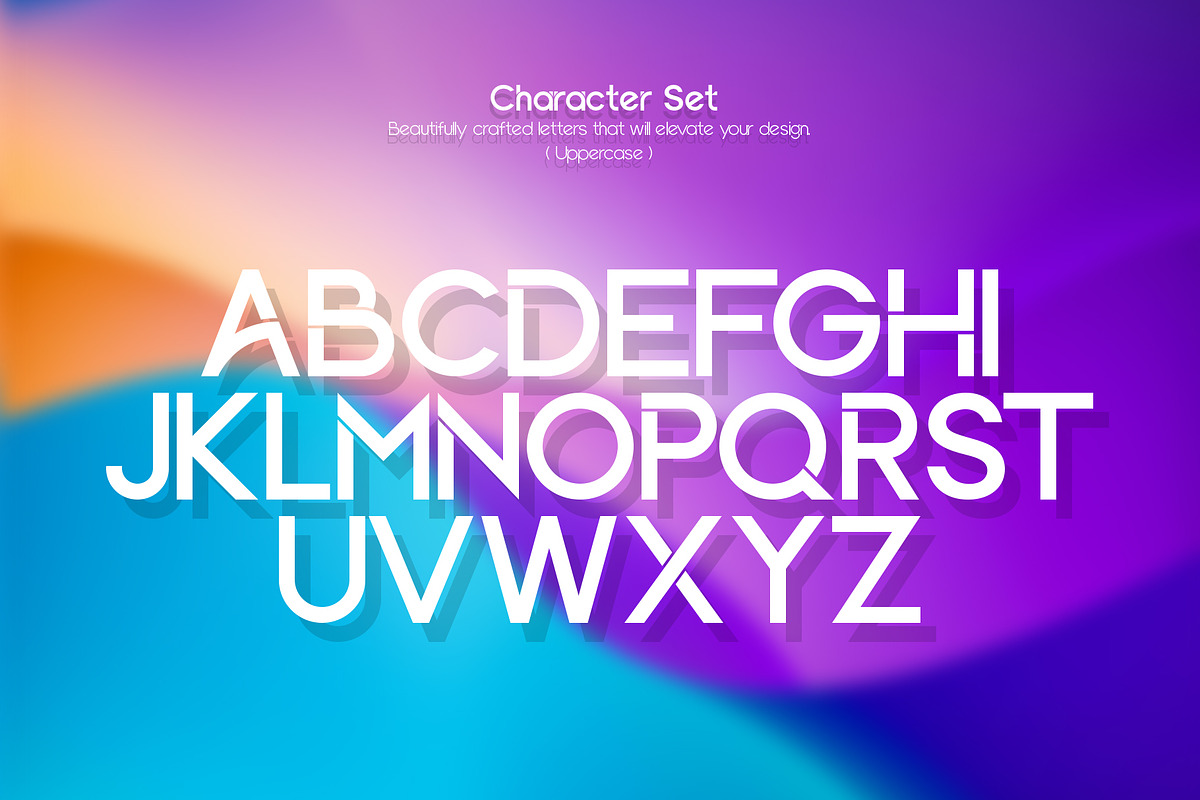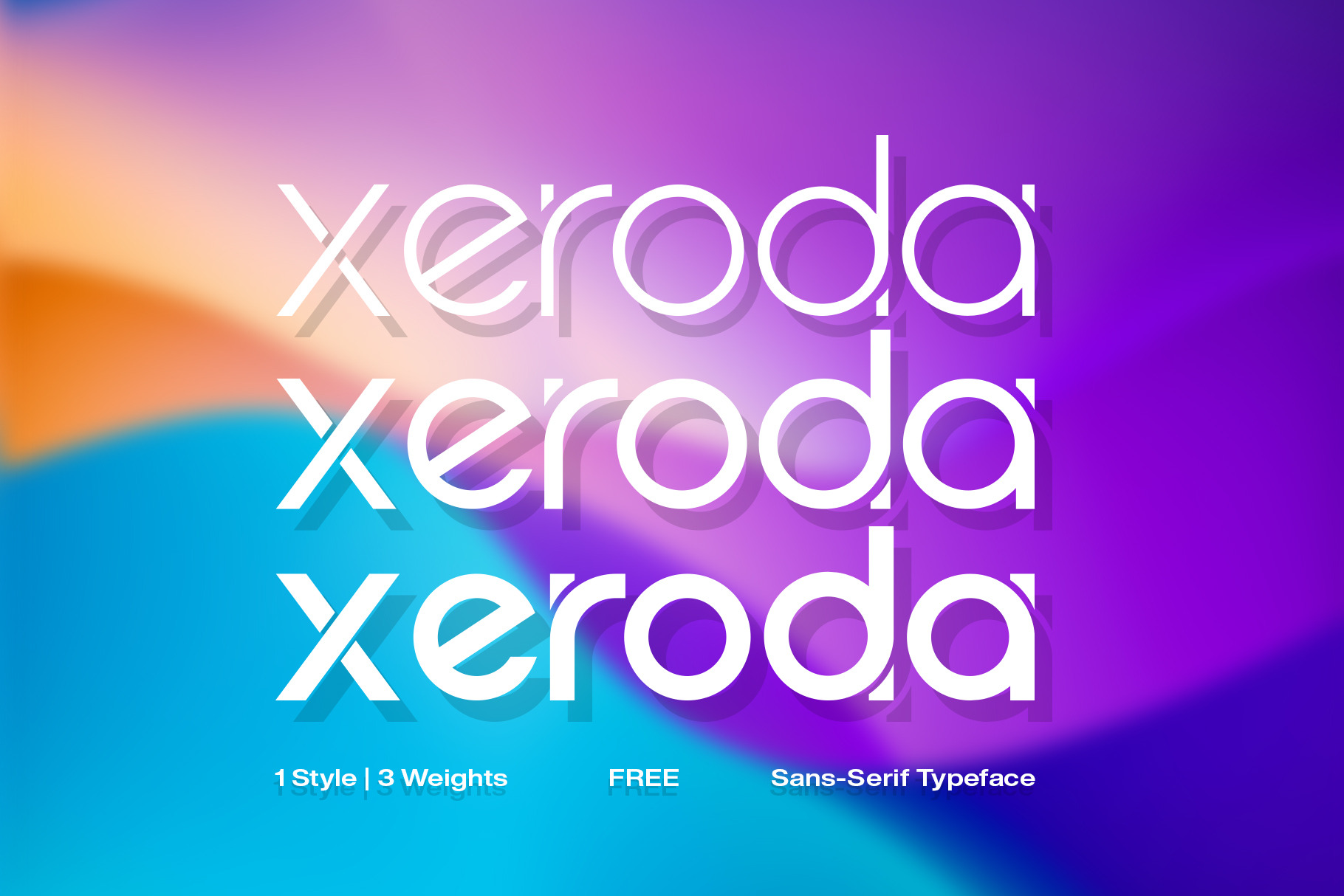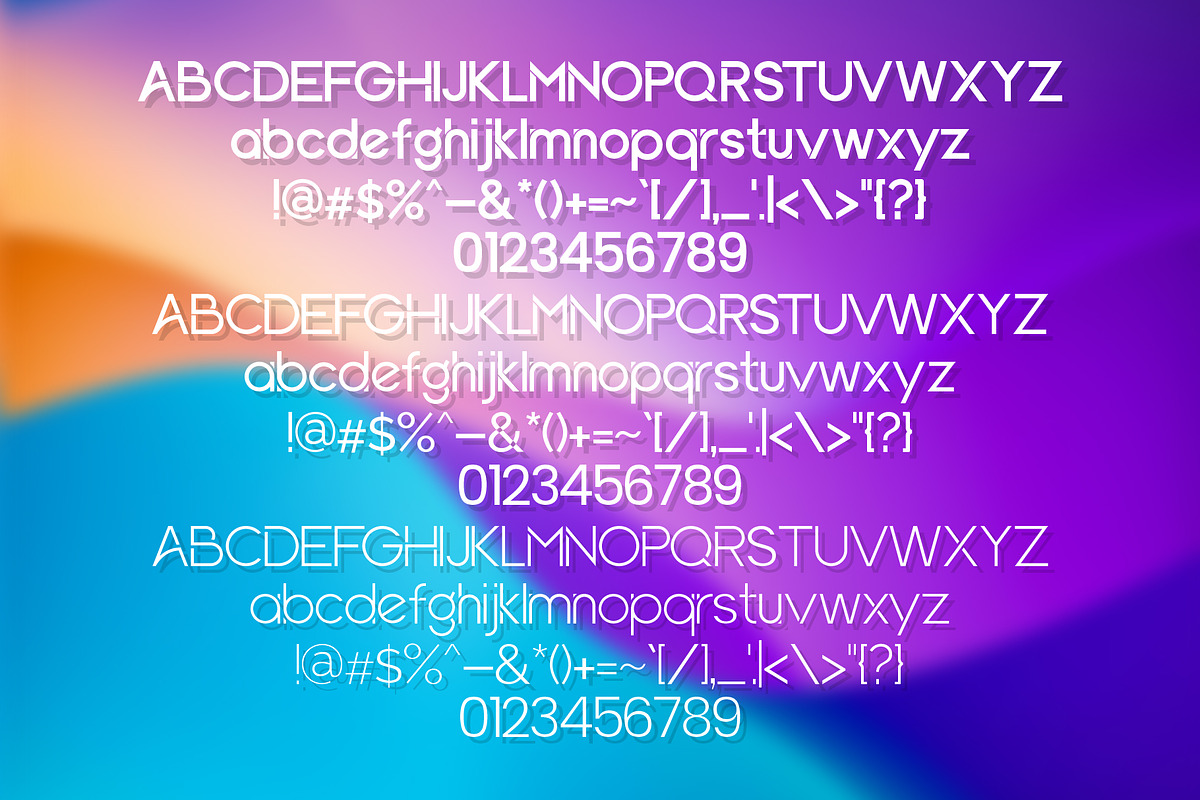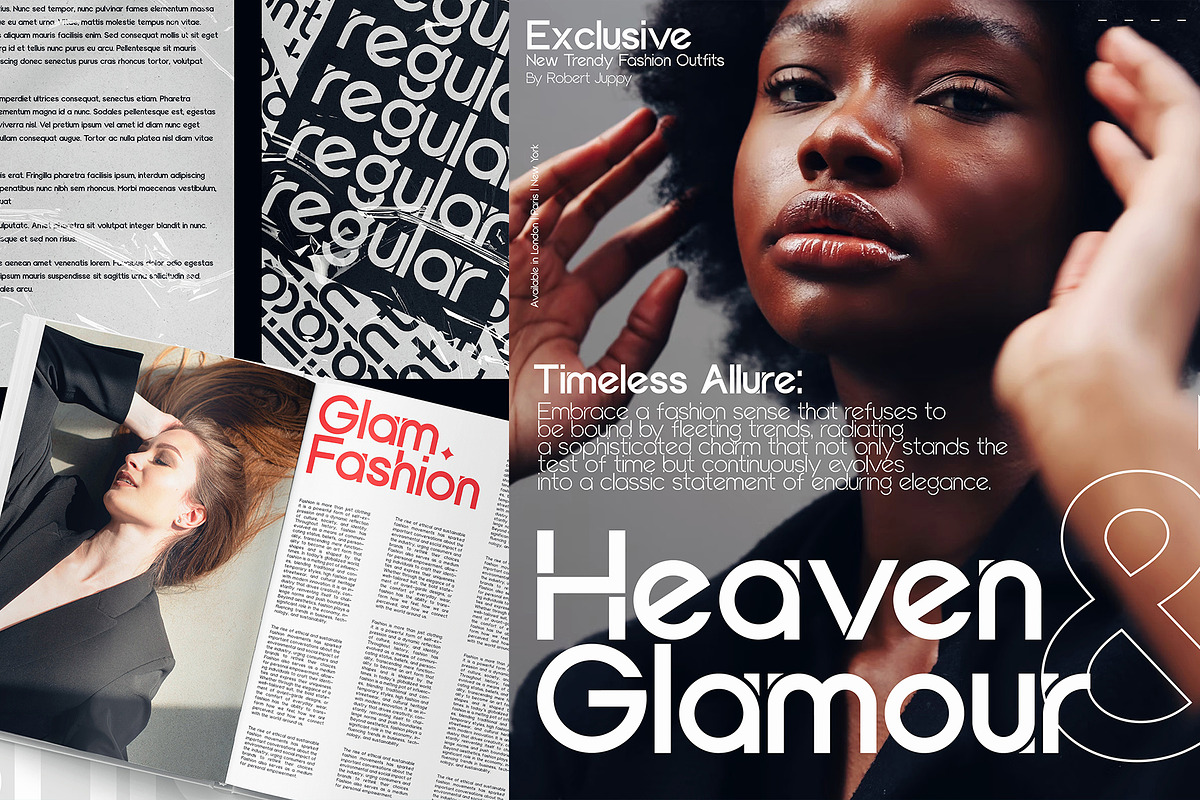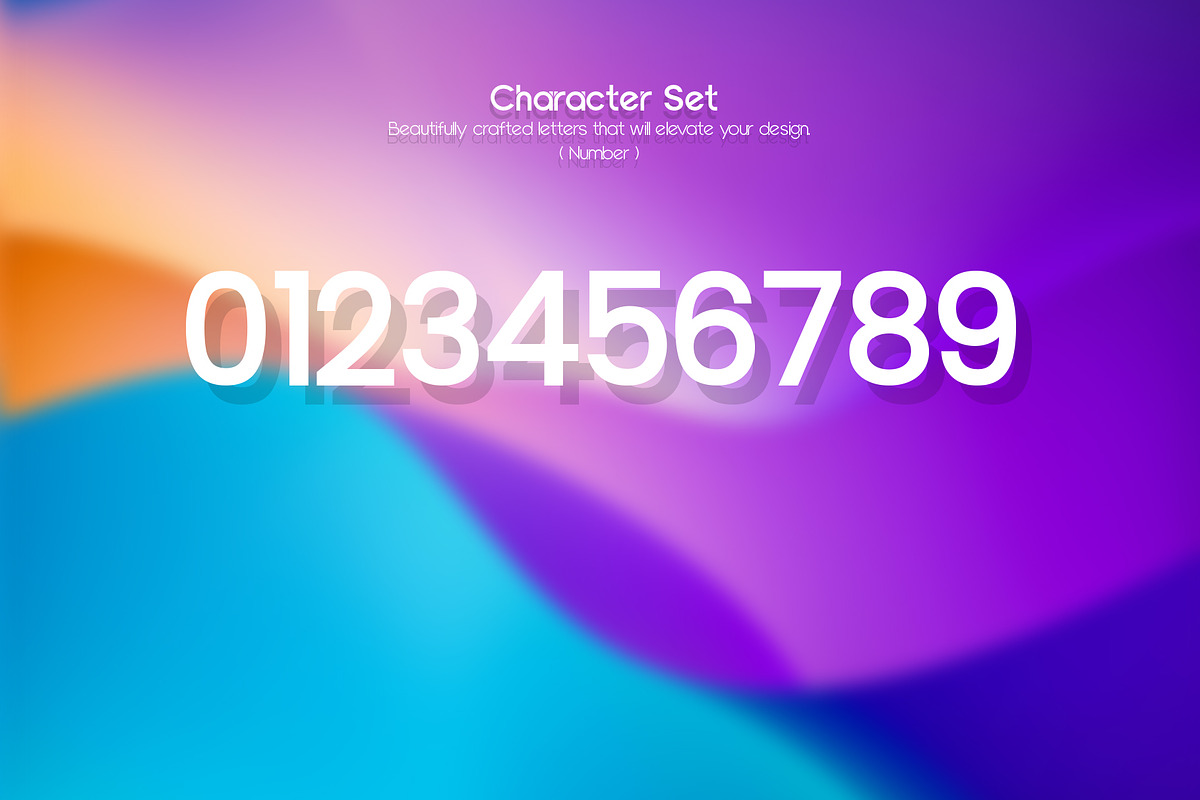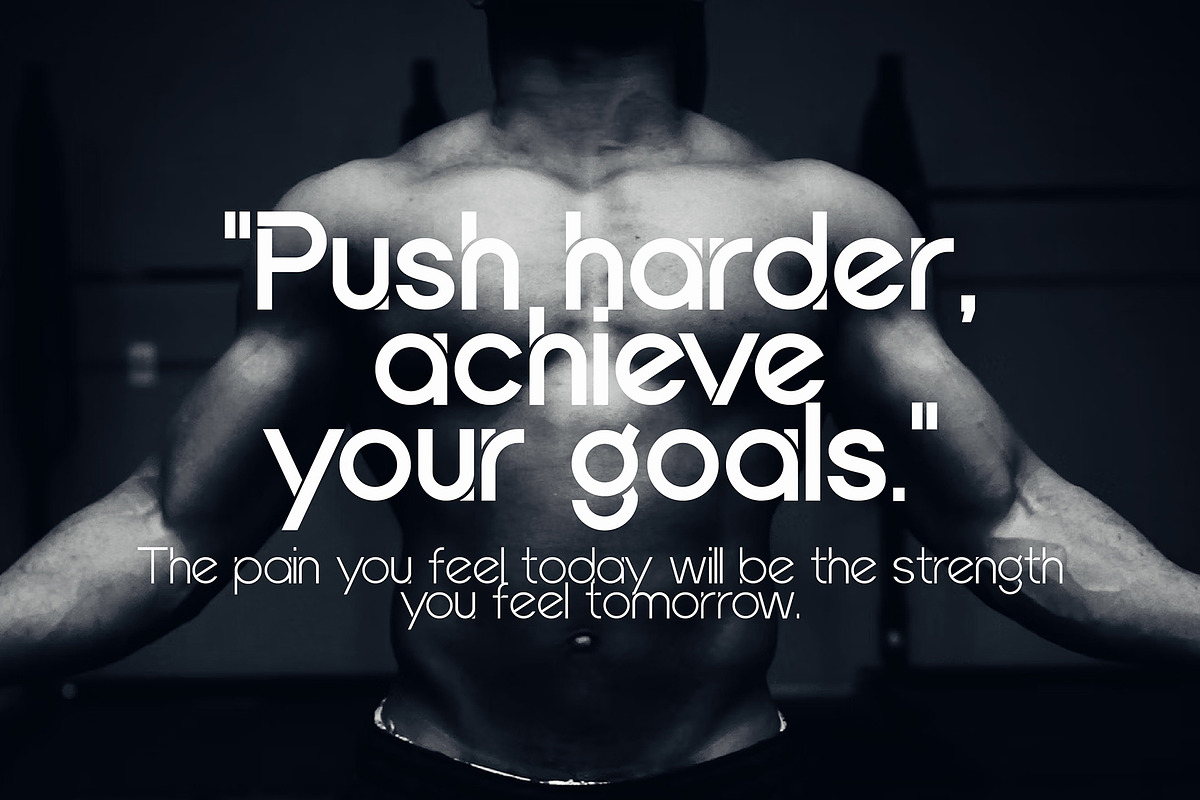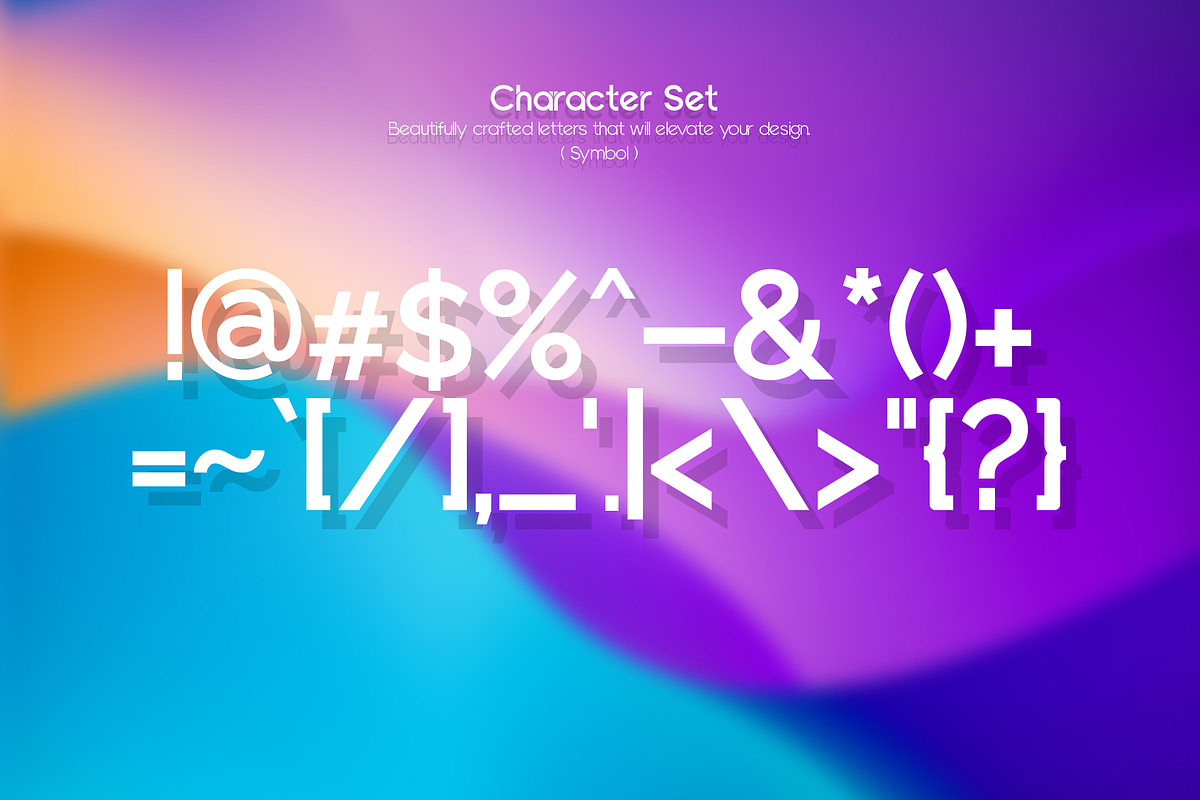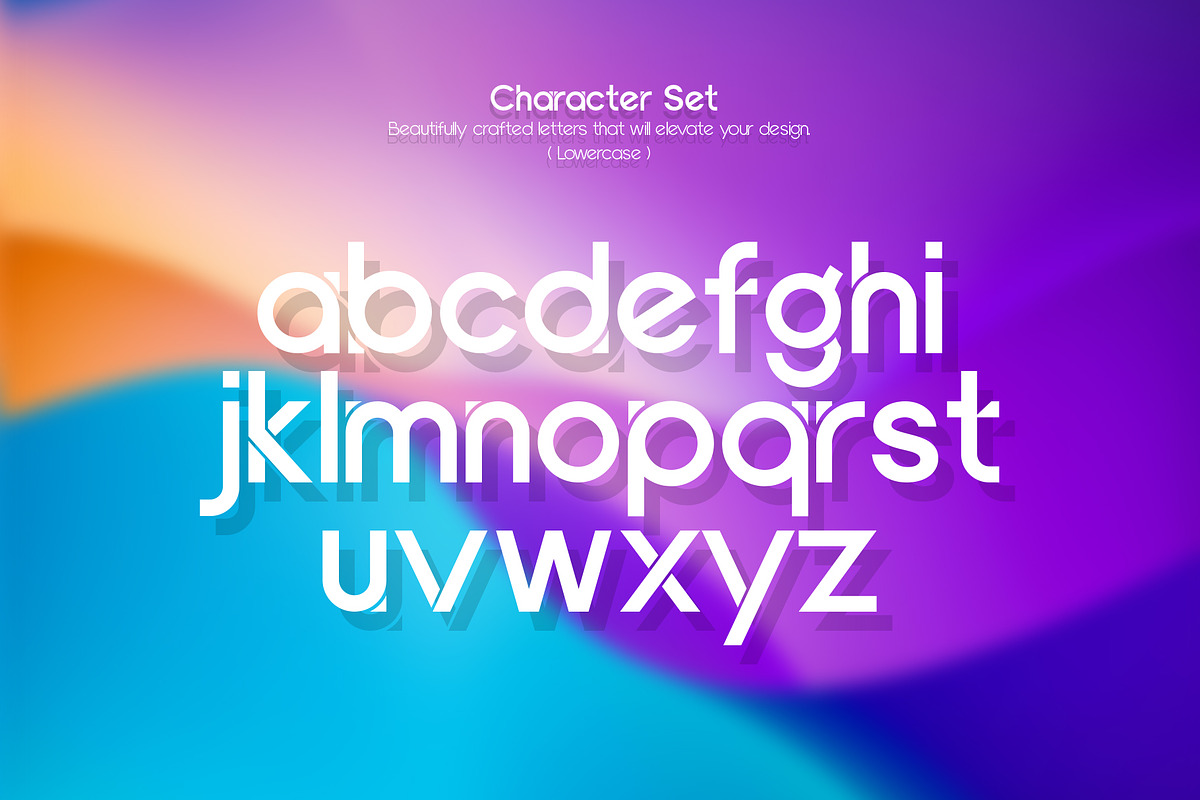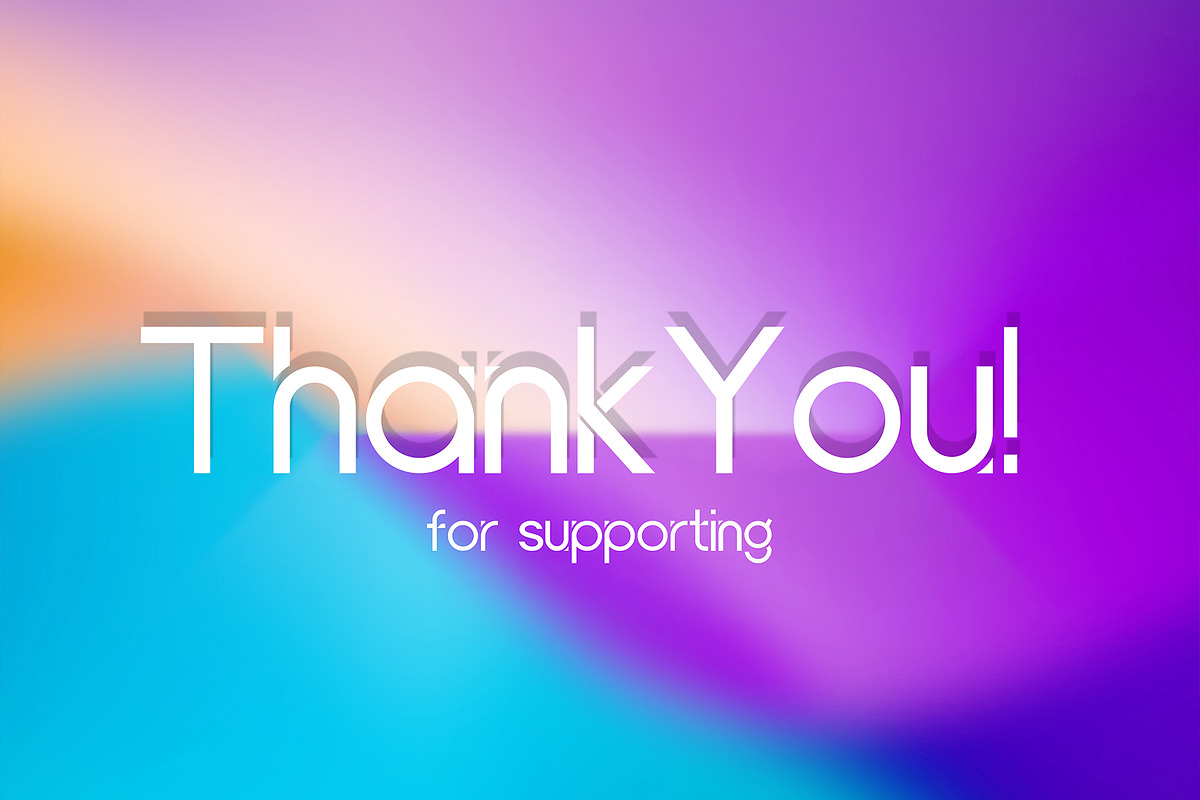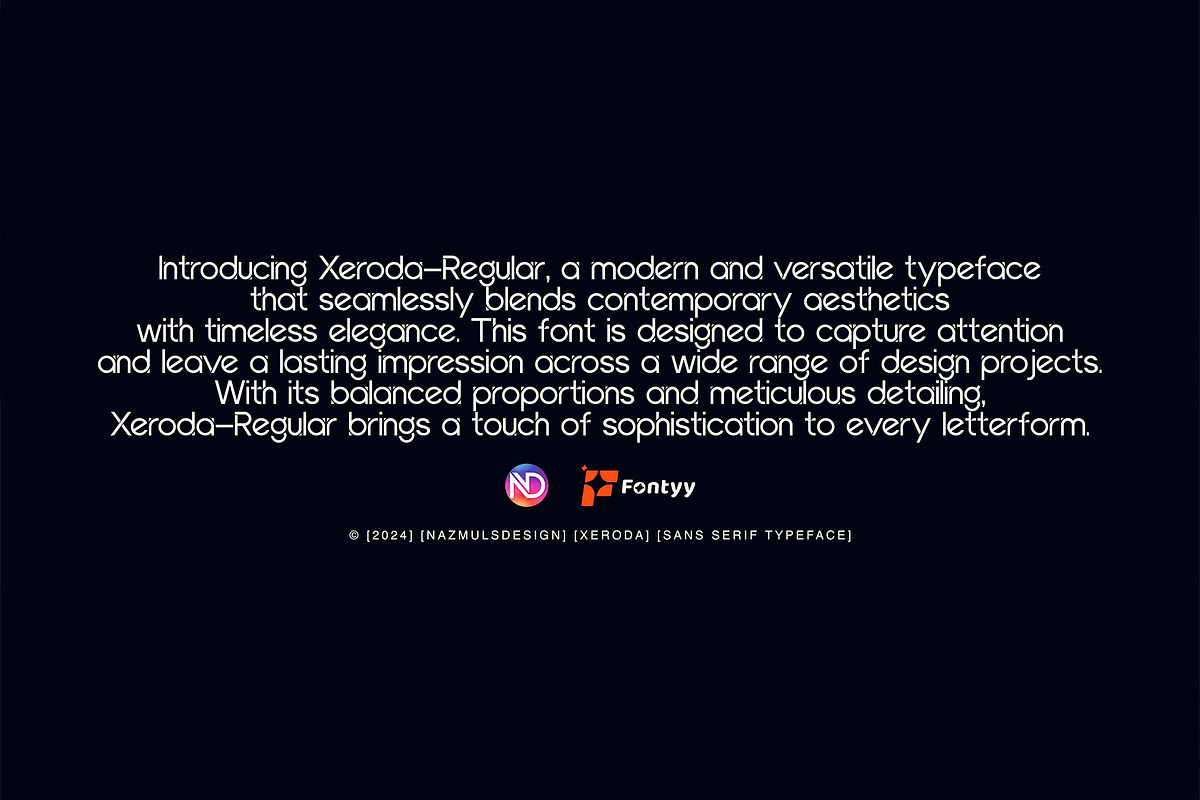
Xeroda - Sans Serif Typeface
Introducing Xeroda, a modern and versatile typeface that seamlessly blends contemporary aesthetics with timeless elegance. This font is designed to capture attention and leave a lasting impression across a wide range of design projects. With its balanced proportions and meticulous detailing, Xeroda-Regular brings a touch of sophistication to every letterform.